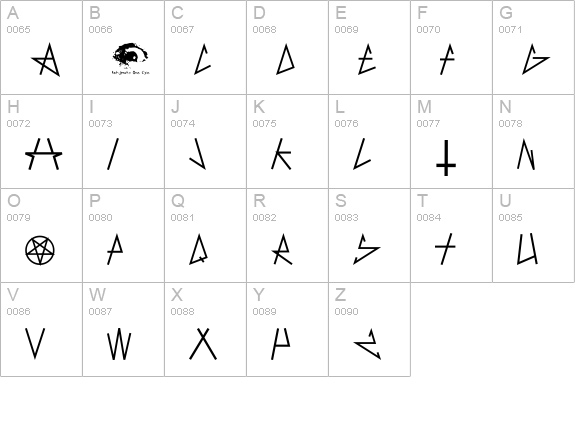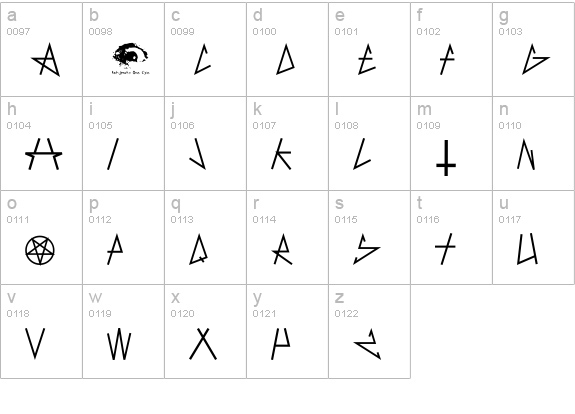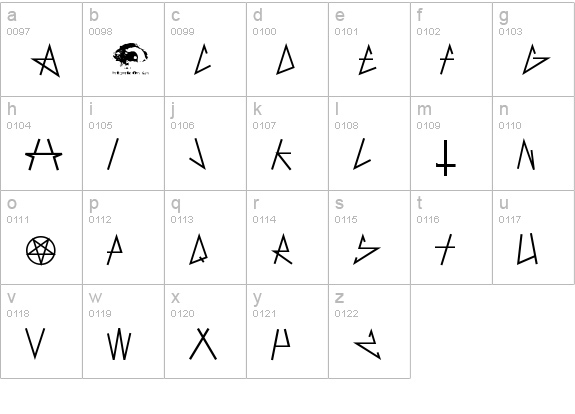
AntiChrist SuperstarSW Font Details
The AntiChrist SuperstarSW font is a bold and edgy typeface that exudes a powerful and rebellious vibe. Its sharp, angular design gives it a modern and avant-garde look, making it perfect for projects that require a touch of defiance and nonconformity. The font's unique style sets it apart from traditional typefaces, making it a standout choice for posters, album covers, and other creative endeavors. And the best part? AntiChrist SuperstarSW is available for free download at FontsMarket.com. Embrace your inner rebel and make a statement with this striking and distinctive font in your next design project. Let your creativity run wild with AntiChrist SuperstarSW!